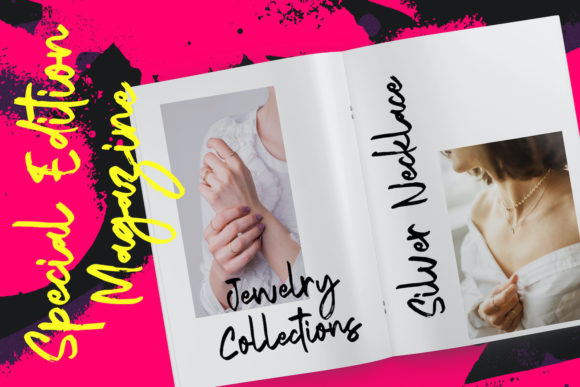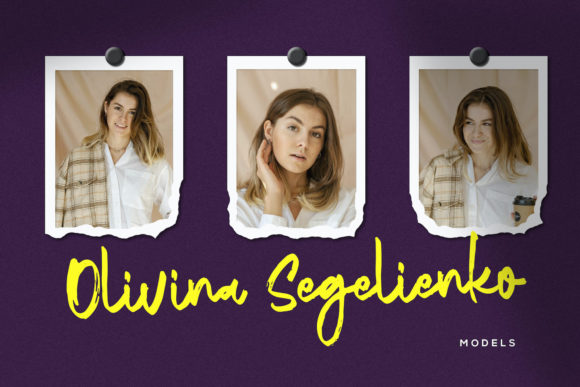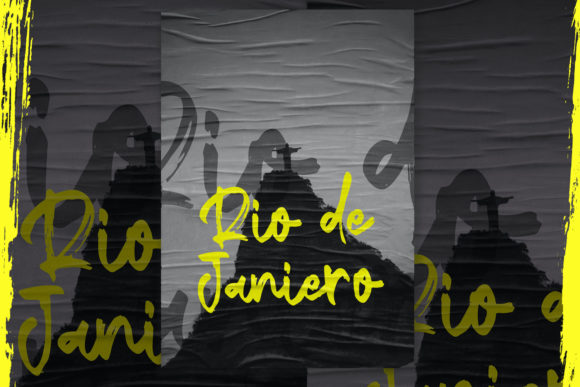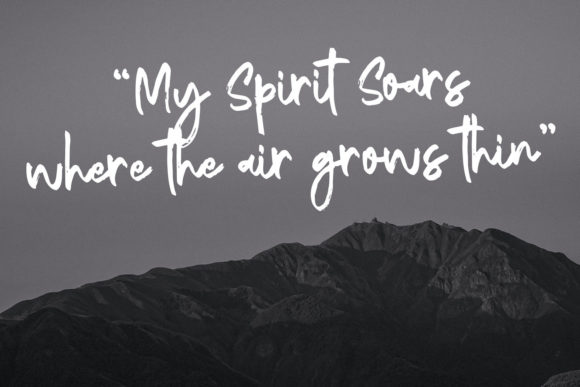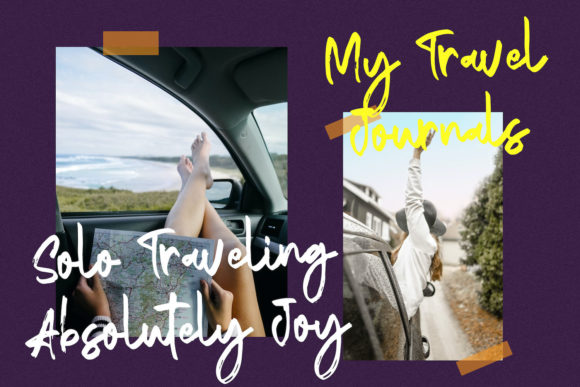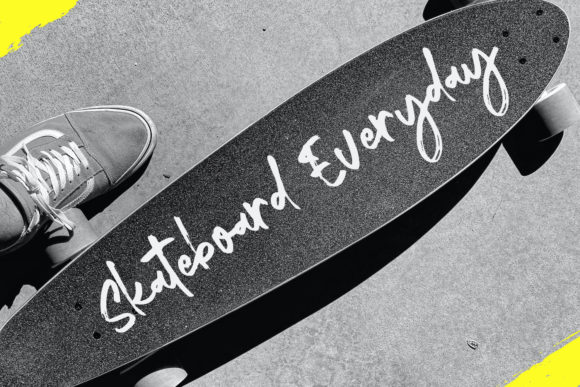
Introduction to Reginy Font
Have you ever found yourself staring at a blank canvas, waiting for that perfect spark to ignite your creative project? For designers, this moment is all too familiar. It’s the moment when inspiration strikes, and the right font can make all the difference. This is exactly what the Reginy Font offers – a high-quality design resource that can elevate your work to the next level.
With its unique blend of texture and brush strokes, the Reginy Font is a standout in the world of typography. Its strong, confident, and dynamic feel can add tons of stylish character to your designs, making it a valuable asset for any creative project.
Whether you’re working on a logo, a marketing campaign, or a digital product, the Reginy Font is a great choice for designers looking to add some personality to their work. And the best part? It’s available for free download with a transparent background, making it easy to integrate into your design workflow.
Key Features of Reginy Font
- High-quality design resource ideal for creative projects, including logos, branding, and marketing materials.
- Unique characteristics include elegant script and cursive styles, making it perfect for adding a touch of sophistication to designs.
- Perfect for use in a variety of creative projects, from wedding invitations to advertising campaigns.
Honest Review: Reginy Font
As a designer, I’m always on the lookout for high-quality design resources that can elevate my creative projects. The Reginy Font is one such resource that caught my attention, and I’m excited to share my honest review.
- ✨ Unique and elegant design style that’s perfect for luxury brands and high-end projects.
- ✨ Transparent background option makes it easy to customize and integrate into any design.
- ⚠️ Limited character set, which may not be ideal for complex or lengthy text-based projects.
- ⚠️ Some users may find the font too ornate or overwhelming, depending on their design style.
Overall, I’m impressed with the Reginy Font’s potential to add a touch of sophistication to my designs. While it may not be perfect for every project, it’s definitely a valuable addition to any designer’s toolkit. With a little creativity, I can see this font being used in everything from branding to typography-focused projects.
Tips for Getting the Most Out of Reginy Font
To get the most out of the Reginy Font, try pairing it with a transparent background to create a modern and sleek design. You can also experiment with different font styles and sizes to create a unique look for your creative project.
Common Use Cases for Reginy Font
The Reginy Font is ideal for a variety of creative projects, including logos, business cards, and social media graphics. Its high-quality design and transparent background make it a versatile and effective design resource.